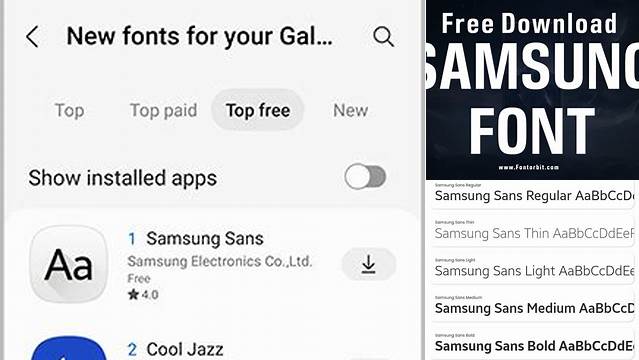
Top Free Fonts To Revamp Your Samsung Phone
Hey guys! Want to give your Samsung phone a fresh new look? One of the easiest ways to do that is by changing the font! Luckily, there are tons of amazing and totally free fonts out there that you can use to personalize your device. In this article, we're going to dive into some of the best free fonts for Samsung devices, how to install them, and some tips for choosing the perfect one. So, let's get started!
1. Understanding Font Compatibility on Samsung Devices
Before we jump into the fonts themselves, it’s super important to understand how fonts work on Samsung devices. Samsung phones use a specific type of font file, usually .ttf
. Not all fonts you find online will be compatible, so you need to make sure you're downloading fonts that are specifically designed for Android. Also, keep in mind that some fonts might look great on your computer but might not translate well to a smaller screen. You want something that’s easy to read and looks good at different sizes. Your phone’s operating system also plays a role. Older versions of Android might have limited font support, while newer versions are generally more flexible. So, before you go wild downloading a bunch of fonts, check your phone's Android version to make sure it's compatible.
4. Best Sans-Serif Fonts for Samsung
Sans-serif fonts are super popular for their clean and modern look. They don't have those little decorative strokes (serifs) at the end of the letters, which makes them easy to read on screens. Some of the best free sans-serif fonts for Samsung include Roboto, Open Sans, and Lato. Roboto is actually the default font for Android, so it's already optimized for your device. Open Sans is another great choice with a friendly and approachable feel. Lato is a bit more geometric and modern, making it perfect if you want something a little more stylish. When choosing a sans-serif font, think about the overall aesthetic you're going for. Do you want something clean and professional, or something a bit more fun and playful? There are tons of options out there, so take your time and find one that you really love!
5. Top Serif Fonts for Samsung
If you're looking for something a bit more classic and traditional, serif fonts are the way to go. These fonts have those little decorative strokes at the end of the letters, which can give your text a more formal and elegant look. Some of the best free serif fonts for Samsung include Times New Roman, Georgia, and Playfair Display. Times New Roman is a classic choice that's been around for ages. Georgia is a bit more modern and readable on screens. Playfair Display is a beautiful font with a lot of personality, perfect for headings and titles. Keep in mind that serif fonts can sometimes be a bit harder to read on smaller screens, so make sure to choose one that's clear and legible.
6. Monospace Fonts for Coding and Technical Use
Monospace fonts are where every character occupies the same amount of horizontal space. This makes them incredibly useful for coding, writing technical documentation, or anything where alignment is important. Consolas, Courier New, and Source Code Pro are great monospace options. Consolas is a popular choice among developers because it's clean and easy to read. Courier New is another classic monospace font that's been around for a long time. Source Code Pro is specifically designed for coding, with clear and distinct characters that make it easy to differentiate between similar symbols. If you're a programmer or someone who works with a lot of text, a good monospace font can make your life a whole lot easier.
7. Script and Handwritten Fonts for a Personal Touch
Want to add a personal touch to your Samsung device? Script and handwritten fonts are perfect for that! These fonts mimic the look of handwriting, giving your text a more informal and unique feel. Some of the best free script and handwritten fonts include Brush Script MT, Pacifico, and Amatic SC. Brush Script MT is a classic script font that's been used in everything from logos to invitations. Pacifico is a fun and friendly handwritten font that's perfect for adding a touch of whimsy to your device. Amatic SC is a tall and narrow handwritten font that's great for headings and titles. Keep in mind that script and handwritten fonts can sometimes be a bit harder to read, so use them sparingly and make sure they're legible.
8. Decorative and Display Fonts for Unique Designs
Decorative and display fonts are all about making a statement. These fonts are designed to grab attention and add personality to your text. They come in all sorts of shapes and styles, from bold and blocky to whimsical and ornate. Some examples include Impact, Bebas Neue, and Lobster. Impact is a classic display font that's perfect for headlines and posters. Bebas Neue is a tall and modern sans-serif font that's great for adding a touch of sophistication to your device. Lobster is a quirky and eye-catching script font that's perfect for adding a bit of fun to your design. Because they are more ornamental in nature, it's best to use these types of fonts in moderation, and they may not always be suitable for body text due to legibility issues.
9. How to Preview Fonts Before Installing
Before you go ahead and install a font, you need to see how it looks. Most font websites offer previews. Use these previews to see how the font looks in different sizes and styles. Type out some sample text to see how it looks in sentences and paragraphs. Some websites even let you customize the preview text, so you can see how the font looks with your own words. This is super helpful for getting a feel for the font before you commit to installing it. Additionally, some font installer apps also have preview features, so you can see how the font will look on your device before you install it. This can save you a lot of time and hassle in the long run.
10. Font Size and Readability Considerations
Okay, you've got your font installed, but can you actually read it? Font size and readability are super important, especially on a small screen. Make sure the font size is large enough to be easily readable without straining your eyes. Experiment with different font sizes in your Samsung's settings until you find one that's comfortable for you. Also, pay attention to the font's legibility. Some fonts might look great at large sizes, but become difficult to read when they're smaller. Consider the font's x-height (the height of the lowercase letters) and the spacing between letters. A font with a larger x-height and wider spacing will generally be easier to read. If you're having trouble reading a font, try increasing the font size or switching to a different font altogether.
11. Changing Font Size on Your Samsung Device
Changing the font size on your Samsung device is a piece of cake! Head to Settings > Display > Font size and style. Here, you'll find a slider that allows you to adjust the font size to your liking. Move the slider to the right to increase the font size, and to the left to decrease it. As you adjust the slider, you'll see a preview of the font size in real-time, so you can find the perfect size for your eyes. Some apps also have their own font size settings, so you might need to adjust those separately. If you're having trouble reading text on your device, increasing the font size is a simple and effective solution. You can also adjust the font style to make it bold, which may help with readability as well.
12. Adjusting Font Style and Weight
Font style and weight can significantly impact the appearance and readability of your text. Font style refers to whether the font is regular, italic, or oblique. Font weight refers to the thickness of the font, ranging from light to bold. Some fonts come in multiple weights, while others only have one. You can usually adjust the font style and weight in your Samsung's settings or in the settings of individual apps. Experiment with different styles and weights to find what looks best for you. A bold font weight can make text stand out and improve readability, while an italic style can add a touch of elegance. Just be careful not to overuse bold or italic styles, as they can become distracting.
13. Using Third-Party Font Apps Safely
If your Samsung device doesn't natively support installing fonts, you might need to use a third-party font app. There are lots of font apps available on the Google Play Store, but you need to be careful when choosing one. Not all font apps are created equal, and some might contain malware or other harmful software. Before installing a font app, make sure to read the reviews and check the permissions. Only install apps from reputable developers with a good track record. Also, be wary of apps that ask for excessive permissions, such as access to your contacts or location. If you're not sure about an app, it's always better to err on the side of caution and avoid installing it. Some popular and safe font apps include iFont and FontFix, but always do your own research before installing any app.
14. Avoiding Common Font Installation Problems
Font installation can sometimes be tricky, and you might run into some common problems. One common problem is that the font file is not compatible with your device. Make sure you're downloading fonts that are specifically designed for Android and that are in the correct format (.ttf or .otf). Another problem is that the font file is corrupted. Try downloading the font again from a different source. Sometimes, the font installation process might fail if you don't have enough storage space on your device. Make sure you have enough free space before trying to install a font. If you're still having problems, try restarting your device or clearing the cache of your font installer app. If all else fails, you can always consult online forums or ask for help from other Samsung users.
15. Resetting to Default Fonts on Samsung
If you're not happy with the font you've installed, or if you're having problems with it, you can always reset to the default font on your Samsung device. This will restore your device's font to the original font that came with the phone. To reset to the default font, go to Settings > Display > Font size and style > Font style. Here, you should see an option to reset to the default font. Select this option, and your device will revert to the original font. This is a super easy way to fix any font-related problems or if you just want to go back to the way things were.
16. Font Pairing: Combining Fonts for a Stylish Look
Font pairing is the art of combining two or more fonts to create a visually appealing and harmonious design. When done well, font pairing can add a touch of sophistication and personality to your device. The key to successful font pairing is to choose fonts that complement each other. A common approach is to pair a serif font with a sans-serif font. For example, you could pair Playfair Display (a serif font) with Montserrat (a sans-serif font). Another approach is to pair a bold font with a lighter font. Experiment with different combinations to see what works best for you. There are also online resources and tools that can help you with font pairing, such as FontPair and Canva's Font Combinations tool.
17. The Psychology of Fonts: Choosing Fonts That Reflect Your Personality
Did you know that fonts can actually evoke different emotions and feelings? The psychology of fonts is a fascinating field that explores how different fonts can influence our perceptions and attitudes. For example, a clean and modern sans-serif font might convey a sense of professionalism and efficiency, while a playful script font might evoke feelings of warmth and friendliness. When choosing fonts for your Samsung device, consider what kind of message you want to send. Do you want to project an image of seriousness and competence, or do you want to express your creativity and individuality? The fonts you choose can be a powerful tool for communicating your personality and style.
18. How Fonts Affect User Experience (UX)
Fonts play a crucial role in user experience (UX), especially on mobile devices. A well-chosen font can make your device more enjoyable and easier to use, while a poorly chosen font can lead to frustration and eye strain. When choosing fonts, consider factors such as readability, legibility, and visual appeal. A font that is easy to read and pleasing to the eye can improve the overall UX of your device. Also, consider the context in which the font will be used. A font that works well for headings might not be suitable for body text, and vice versa. By carefully considering the impact of fonts on UX, you can create a more user-friendly and engaging experience on your Samsung device.
19. Best Fonts for Reading E-books on Samsung Devices
Reading e-books on your Samsung device can be a fantastic experience, but it's important to choose the right font to avoid eye strain. Some of the best fonts for reading e-books include Bookerly, Literata, and Georgia. Bookerly is Amazon's proprietary font that's specifically designed for e-readers. It's highly readable and optimized for digital screens. Literata is another great option that's designed for long-form reading. Georgia is a classic serif font that's known for its readability. When choosing a font for reading e-books, consider factors such as x-height, letter spacing, and contrast. A font with a larger x-height, wider letter spacing, and good contrast will generally be easier to read for extended periods of time.
20. Fonts and Accessibility: Making Your Device User-Friendly for Everyone
Accessibility is an important consideration when choosing fonts for your Samsung device. You want to make sure that your device is user-friendly for everyone, including people with visual impairments. Some fonts are more accessible than others. For example, fonts with a larger x-height, wider letter spacing, and good contrast are generally easier to read for people with low vision. You can also increase the font size and adjust the font weight to improve readability. Additionally, consider using a sans-serif font, as these fonts are generally considered to be more accessible than serif fonts. By taking accessibility into account when choosing fonts, you can make your device more inclusive and user-friendly for everyone.
21. The Future of Fonts on Android
The world of fonts is constantly evolving, and there are some exciting developments on the horizon for Android. One trend is the increasing use of variable fonts. Variable fonts are a new type of font that allows for greater flexibility and customization. With variable fonts, you can adjust various aspects of the font, such as weight, width, and slant, without having to load multiple font files. This can lead to smaller file sizes and improved performance. Another trend is the increasing use of color fonts. Color fonts allow for the inclusion of multiple colors and gradients within a single font. This can open up new possibilities for creative and expressive typography. As Android continues to evolve, we can expect to see even more innovative and exciting developments in the world of fonts.
22. Creating Your Own Custom Fonts
Feeling creative? You can actually create your own custom fonts! There are many font creation tools available, ranging from free online tools to professional software. Some popular font creation tools include FontForge, BirdFont, and Glyphs. Creating a font can be a time-consuming process, but it can also be a rewarding experience. You'll need to learn the basics of typography and font design, but there are many online resources and tutorials to help you get started. Once you've created your font, you can install it on your Samsung device and share it with others. Creating your own custom font is a great way to express your creativity and create a truly unique look for your device.
23. Licensing Considerations for Free Fonts
While many fonts are offered for free, it's super important to understand the licensing terms before using them. Not all free fonts are created equal, and some might have restrictions on how you can use them. Some fonts might be free for personal use only, while others might be free for commercial use as well. Always check the font's license before using it, especially if you plan to use it for commercial purposes. Some common font licenses include the SIL Open Font License (OFL) and the Creative Commons license. The OFL is a popular license for free and open-source fonts. It allows you to use, modify, and distribute the font for both personal and commercial purposes. The Creative Commons license offers a range of options, from attribution-only to non-commercial restrictions. Make sure you understand the terms of the license before using a font to avoid any legal issues.
24. Fonts for Specific Languages and Scripts
If you're using your Samsung device to display text in a language other than English, you'll need to make sure you have fonts that support that language's script. Not all fonts support all languages, and some fonts might have limited support for certain scripts. For example, if you're using your device to display text in Chinese, you'll need to make sure you have fonts that support the Chinese characters. Similarly, if you're using your device to display text in Arabic, you'll need to make sure you have fonts that support the Arabic script. There are many fonts available that support a wide range of languages and scripts. Google Noto is a great option, as it's designed to support all languages in the world. When choosing fonts for specific languages, make sure to check the font's character set to ensure that it supports the characters you need.
25. How to Back Up and Restore Your Fonts
It's always a good idea to back up your fonts before making any major changes to your device. This way, if something goes wrong, you can easily restore your fonts to their previous state. There are several ways to back up your fonts. One way is to simply copy the font files to your computer or to a cloud storage service. Another way is to use a font management app that has backup and restore features. Some font management apps can automatically back up your fonts on a regular basis. When restoring your fonts, simply copy the font files back to your device or use the font management app to restore them. Backing up your fonts is a simple precaution that can save you a lot of time and hassle in the long run.
26. Troubleshooting Font Display Issues
Sometimes, you might encounter font display issues on your Samsung device. These issues can range from fonts not displaying correctly to fonts appearing blurry or distorted. One common cause of font display issues is a corrupted font file. Try downloading the font again from a different source. Another cause can be compatibility issues with your device's operating system. Make sure you're using fonts that are compatible with your version of Android. You can also try clearing the cache of your font management app or restarting your device. If you're still having problems, try uninstalling and reinstalling the font. If all else fails, you can consult online forums or ask for help from other Samsung users.
27. Using Fonts to Enhance Your Social Media Presence
Fonts can be a powerful tool for enhancing your social media presence. The fonts you use in your posts and profiles can convey your brand's personality and attract attention from potential followers. When choosing fonts for social media, consider your target audience and the overall aesthetic you're going for. A clean and modern sans-serif font might be appropriate for a professional brand, while a playful script font might be better suited for a creative brand. You can also use fonts to highlight important information or to create visual interest. Just be careful not to overuse fonts, as too many fonts can be distracting and overwhelming. Stick to a few complementary fonts that work well together. There are many online tools and resources that can help you with font pairing and social media branding.
28. Fonts and Branding: Creating a Consistent Visual Identity
Fonts play a crucial role in branding, as they contribute to the overall visual identity of your brand. Your brand's fonts should be consistent across all of your marketing materials, from your logo and website to your social media profiles and print ads. Choosing the right fonts can help you communicate your brand's personality and values. For example, a bold and authoritative font might convey a sense of strength and reliability, while an elegant and refined font might convey a sense of sophistication and luxury. When choosing fonts for your brand, consider your target audience, your brand's values, and the overall message you want to convey. Work with a professional designer to create a cohesive and visually appealing brand identity.
29. Mobile Typography Best Practices
Mobiles have specific typography considerations. Ensure readability with appropriate font sizes and line heights. Use responsive design techniques to adapt fonts to different screen sizes. Test fonts on various devices to guarantee legibility. Optimize for mobile performance by using web fonts sparingly and compressing font files. Consider the touch targets and ensure sufficient spacing around text for user interaction. These practices enhance user experience on mobile devices.
30. Future Trends in Mobile Font Technology
Exciting changes are coming to fonts in mobile! Expect more variable fonts that adjust on the fly, improving responsiveness. Color fonts will become more common, adding visual flair. AI-powered font selection tools will emerge, assisting designers. Font formats will optimize for smaller file sizes and better performance. Augmented reality (AR) will integrate fonts into immersive experiences. Stay tuned for these advancements!